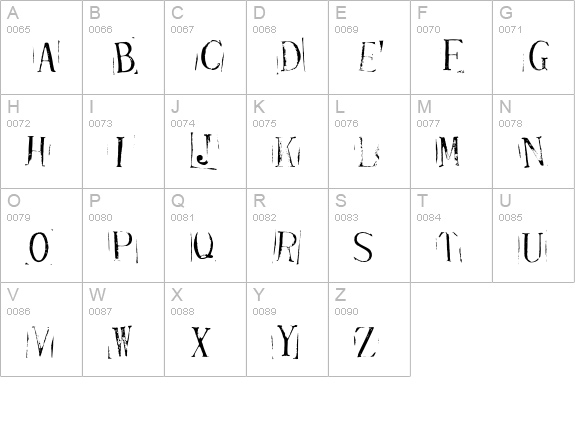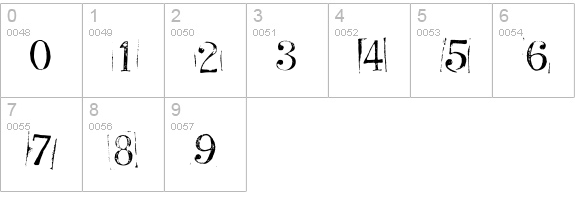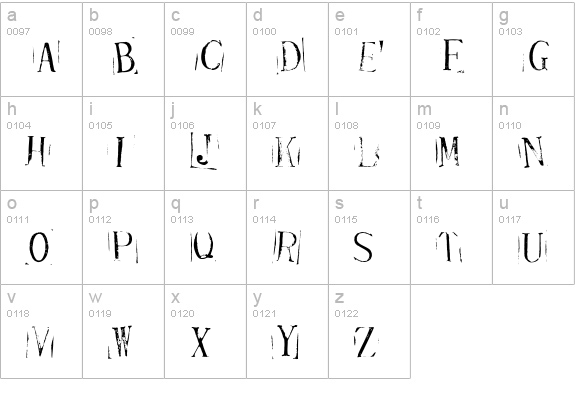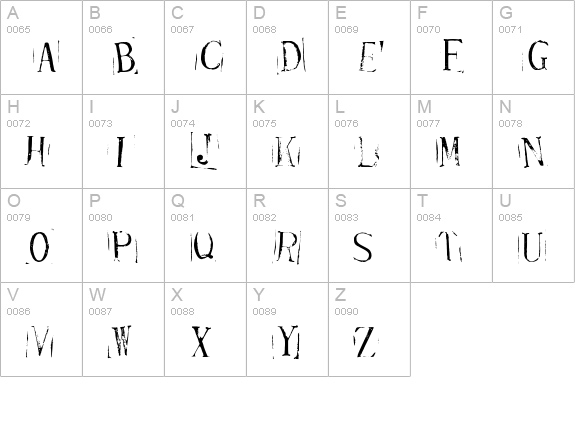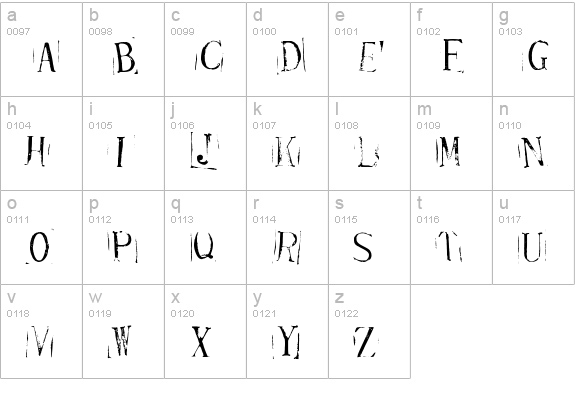
Ticket CapitalsRepressed Font Details
Introducing Ticket CapitalsRepressed font, a stunning and versatile typeface that exudes an aura of mystery and elegance. With its intricate details and beautifully crafted letterforms, this font is sure to captivate and inspire any design project. Ticket CapitalsRepressed font combines elements of vintage typography with a modern twist, resulting in a truly unique and eye-catching aesthetic. Its bold and strong appearance makes it perfect for headlines, logos, branding, and any other creative endeavor that requires a touch of sophistication. One of the most remarkable aspects of Ticket CapitalsRepressed font is that it is freely available to download at FontsMarket.com. Yes, you read that right – you can enjoy the full potential of this exceptional font without any cost. Now, you can elevate your designs without breaking the bank or compromising on quality. This font offers a wide range of uppercase characters, numbers, and punctuation marks, providing endless possibilities for your creative expressions. Whether you are designing a poster, a book cover, or a website, Ticket CapitalsRepressed font will effortlessly elevate your project to new heights. Its versatility extends beyond just the digital realm – this font is also perfect for various print applications such as invitations, packaging, and signage. Its timeless appeal ensures that your designs will stand the test of time, leaving a lasting impression on anyone who interacts with them. So why wait? Download the Ticket CapitalsRepressed font now at FontsMarket.com and discover the freedom to create stunning designs without any constraints. Let your imagination run wild and watch as this font breathes life into your artistic visions.